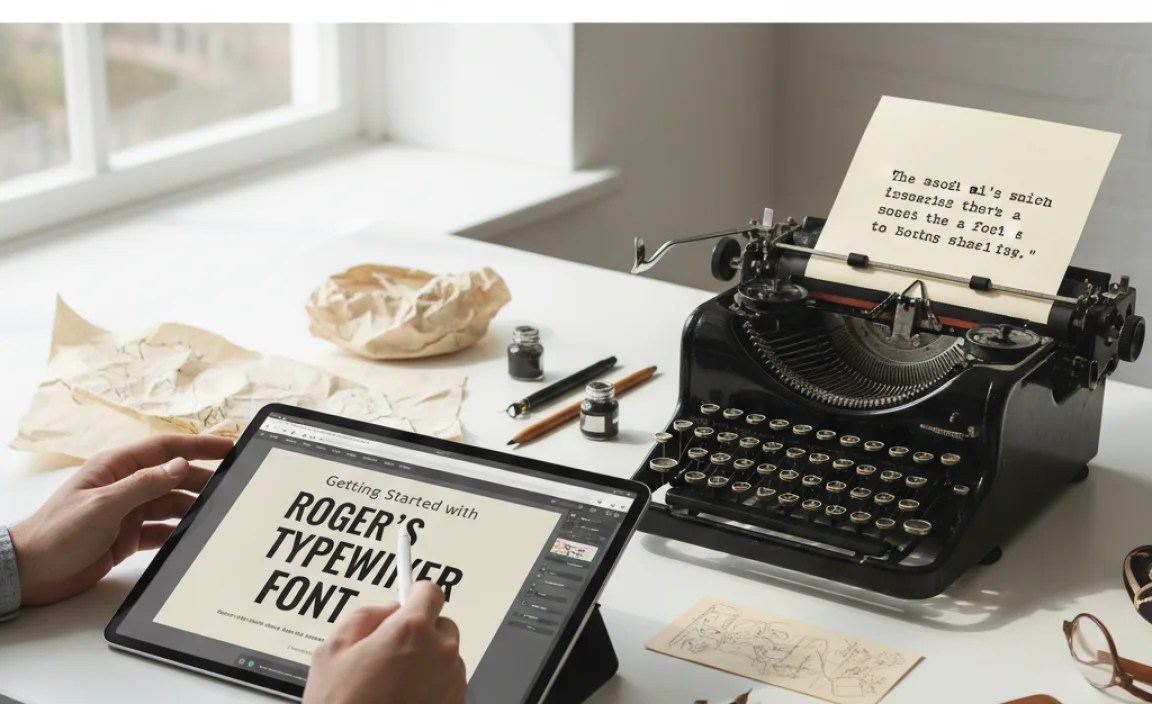
Roger’s Typewriter Font is a versatile, charming typeface that offers vintage appeal with modern readability, making it an essential choice for designers seeking to evoke a classic, handmade feel. Its unique character adds personality to projects ranging from branding to web design, proving that a well-chosen font can be both genius and indispensable.
Ever stared at a beautiful design and wondered what makes it feel so special? Often, it’s the font! Choosing the right typeface can feel like a big decision, especially when you want a touch of old-school charm.
What if there was a font that could give you that perfect vintage vibe without sacrificing clarity? That’s where fonts like Roger’s Typewriter come in. This guide will walk you through why this font is a hidden gem and how you can use it to make your own designs sing.
Discovering Roger’s Typewriter Font: A Touch of Genius
In the vast world of typography, some fonts just have that extra something. Roger’s Typewriter Font is one of them. It’s not just another font; it’s a carefully crafted design that brings the beloved aesthetic of classic typewriters into the digital age. But what exactly makes it so special? Let’s dive in and uncover its magic.
The Allure of the Vintage Typewriter Aesthetic
There’s an undeniable charm to anything that evokes the golden age of typewriters. Think of old letters, manuscripts, and iconic literary works. These often featured a distinctive, slightly irregular, yet perfectly readable style. This look speaks of craftsmanship, authenticity, and a personal touch. Roger’s Typewriter Font captures this essence beautifully. It offers:
- Nostalgic Feel: It instantly transports viewers back to a time of physical pages and mechanical precision.
- Handcrafted Character: Each letter feels unique, as if individually pressed onto paper.
- Authenticity: It lends a sense of genuine connection to the content, avoiding the sterile feel of many modern fonts.
This aesthetic isn’t just for show; it can powerfully influence how an audience perceives your message. It suggest a slower, more thoughtful approach, which can be incredibly appealing in our fast-paced world.
What Makes Roger’s Typewriter Font “Genius”?
The genius of Roger’s Typewriter Font lies in its ability to perfectly blend vintage appeal with essential modern functionality. Many vintage-inspired fonts can be difficult to read on screens or in smaller sizes. However, Roger’s Typewriter Font achieves a remarkable balance. It’s:
- Highly Readable: Despite its distinct character, the letterforms are clear and well-spaced, ensuring excellent legibility across various sizes and mediums. This is crucial for everything from body text on a website to headlines in a magazine.
- Versatile: It works wonderfully for headlines, short paragraphs, captions, and even as a stylistic accent.
- Unique but not Overpowering: It has a strong personality that stands out but doesn’t dominate your design, allowing your message to remain the focus.
This thoughtful design makes it incredibly useful for a wide range of creative projects. It’s a font that understands the needs of contemporary design while honoring a classic style.
Why Roger’s Typewriter Font is Essential for Your Toolkit
Beyond its inherent charm and clever design, Roger’s Typewriter Font is an essential addition to any designer’s or content creator’s toolkit. It provides solutions for common design challenges and opens up new creative possibilities. Let’s explore why it’s so indispensable.
Elevating Everyday Designs
Sometimes, a design just needs a little something extra to feel complete. Roger’s Typewriter Font can be that “something.” It can:
- Add Personality: Inject character into otherwise plain text.
- Create Contrast: Pair it with a clean, modern sans-serif font for a striking visual juxtaposition.
- Evoke Specific Themes: Perfect for projects with a vintage, retro, literary, or artisanal focus.
Imagine a modern blog post about slow living. Using Roger’s Typewriter Font for pull quotes or section headers can instantly reinforce the theme without making the entire article feel dated.
Bridging Digital and Analog Aesthetics
In a digital world, typography often defaults to sleek, universally clean styles. Roger’s Typewriter Font offers a welcome bridge back to the tactile, personal feel of the analog past. This is particularly valuable for:
- Branding: Businesses wanting to convey authenticity, craftsmanship, or a connection to history can use this font to build a unique brand identity.
- Marketing Materials: Flyers, posters, or social media graphics can gain a distinctive voice.
- Web Design: For websites that aim for a unique, friendly, or vintage-inspired look, this font can be a cornerstone.
It’s a way to connect with an audience on a more personal level, suggesting that the creator has put careful thought and a human touch into every element.
Clean, modern sans-serif fonts (like Open Sans, Montserrat) or simple, classic serif fonts (like Georgia, Garamond) make excellent pairings. They provide contrast and ensure your main content remains easily readable.